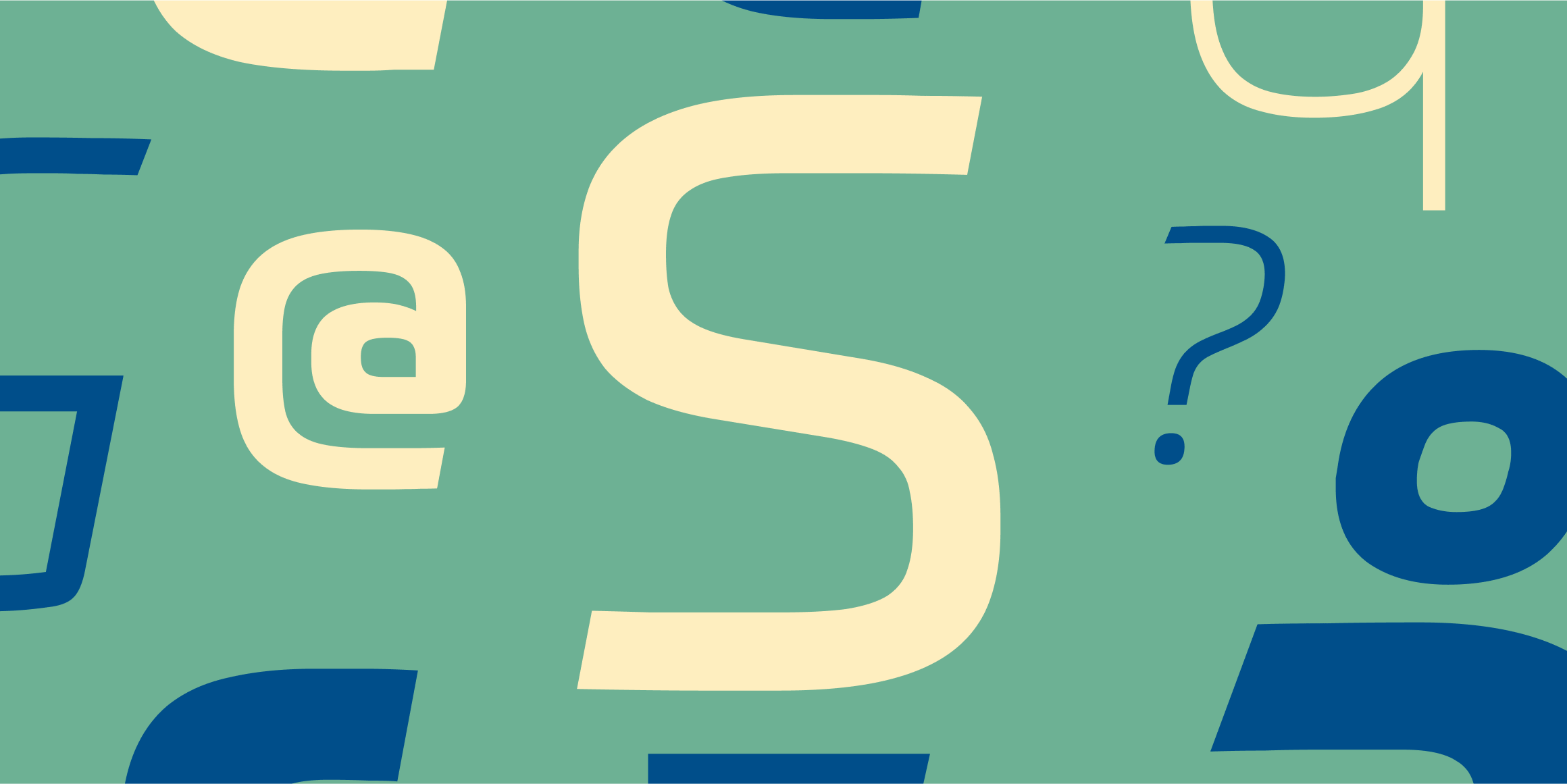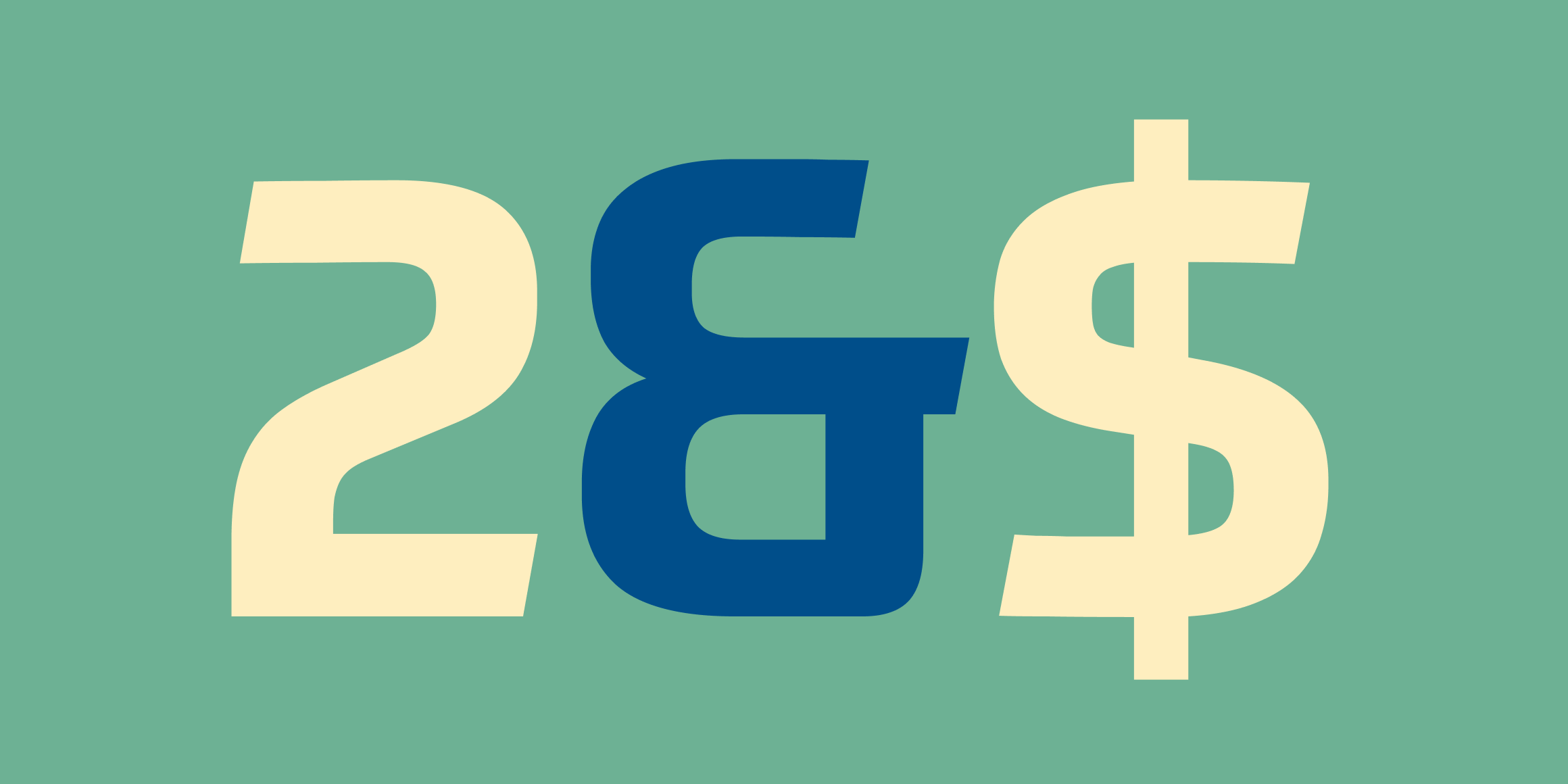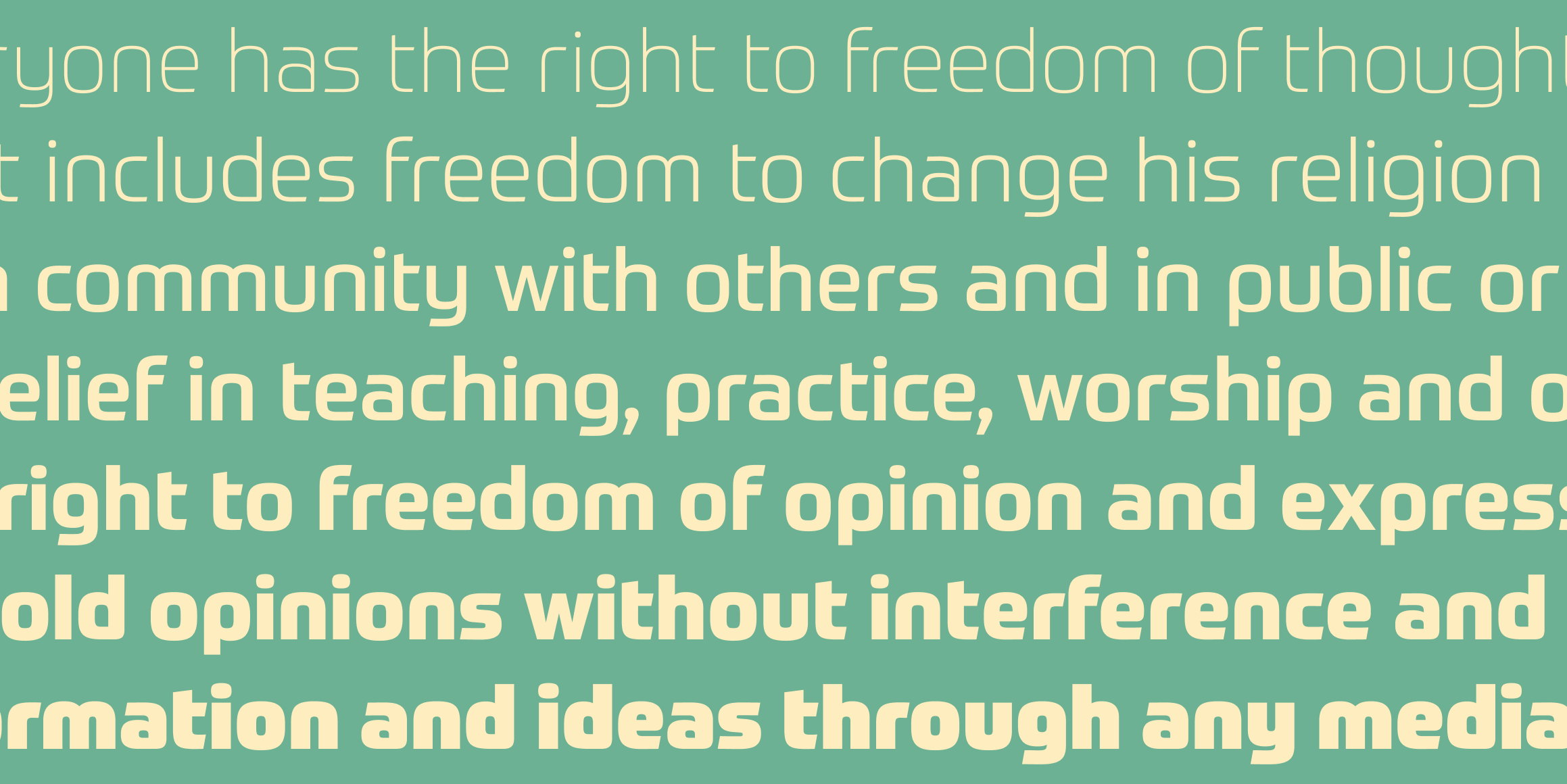
Sinaloa & Sonora
Sinaloa
Sonora
The basic character set was designed by Rosmarie Tissi in 1972 and Sinaloa first released by Letraset in 1974. The digital type design for LL Sinaloa and LL Sonora by Céline Odermatt in collaboration with Rosmarie Tissi, released by Lineto in 2024.